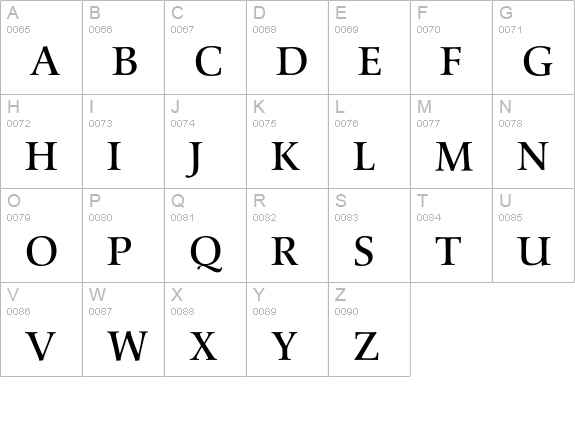
Schneider-Antiqua Regular Font Details
Schneider-Antiqua Regular is the standard, neutral variant in the Schneider typeface family \xE2\x80\x94 well suited to general body text, paragraphs, and standard typographic work.
Schneider-Antiqua Regular font is a timeless and elegant typeface that exudes sophistication and class. Its clean lines and graceful curves make it perfect for a wide range of design projects, from print materials to digital applications. This font features a balanced and harmonious letterform, making it easily readable even at small sizes. Its medium weight gives it a balanced presence, making it suitable for both headlines and body text. Schneider-Antiqua Regular font is imbued with a sense of history, harkening back to traditional serif typefaces that have stood the test of time. It evokes a sense of nostalgia while still maintaining a modern edge, making it a versatile choice for any design project. One of the best features of Schneider-Antiqua Regular font is that it is freely available to download at FontsMarket.com. This means that designers and creatives can access this beautiful font without any cost, making it a valuable asset for anyone seeking to enhance their designs. Whether you are working on a branding project, creating a magazine layout, or designing a website, Schneider-Antiqua Regular font is sure to elevate your work with its timeless beauty and versatility. Don't miss the opportunity to download this exquisite font for free at FontsMarket.com and add a touch of elegance to your design projects.